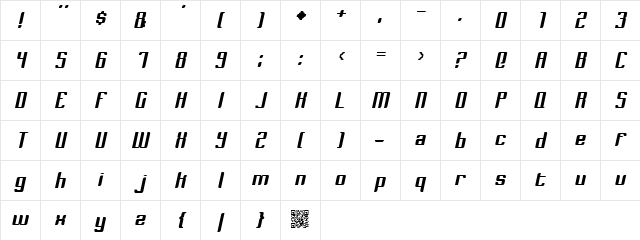
Dymeda Italic Free Font
Dymeda Italic
Foundry: TracerTong
Design Context for Dymeda
Dymeda is a composed and adaptable typeface that performs quietly and consistently across a wide range of design contexts. The slanted form adds forward momentum and visual energy.
Pro Tip: Use Dymeda for emphasis, pull quotes, and subheadings where its slanted energy can add rhythm to the layout.